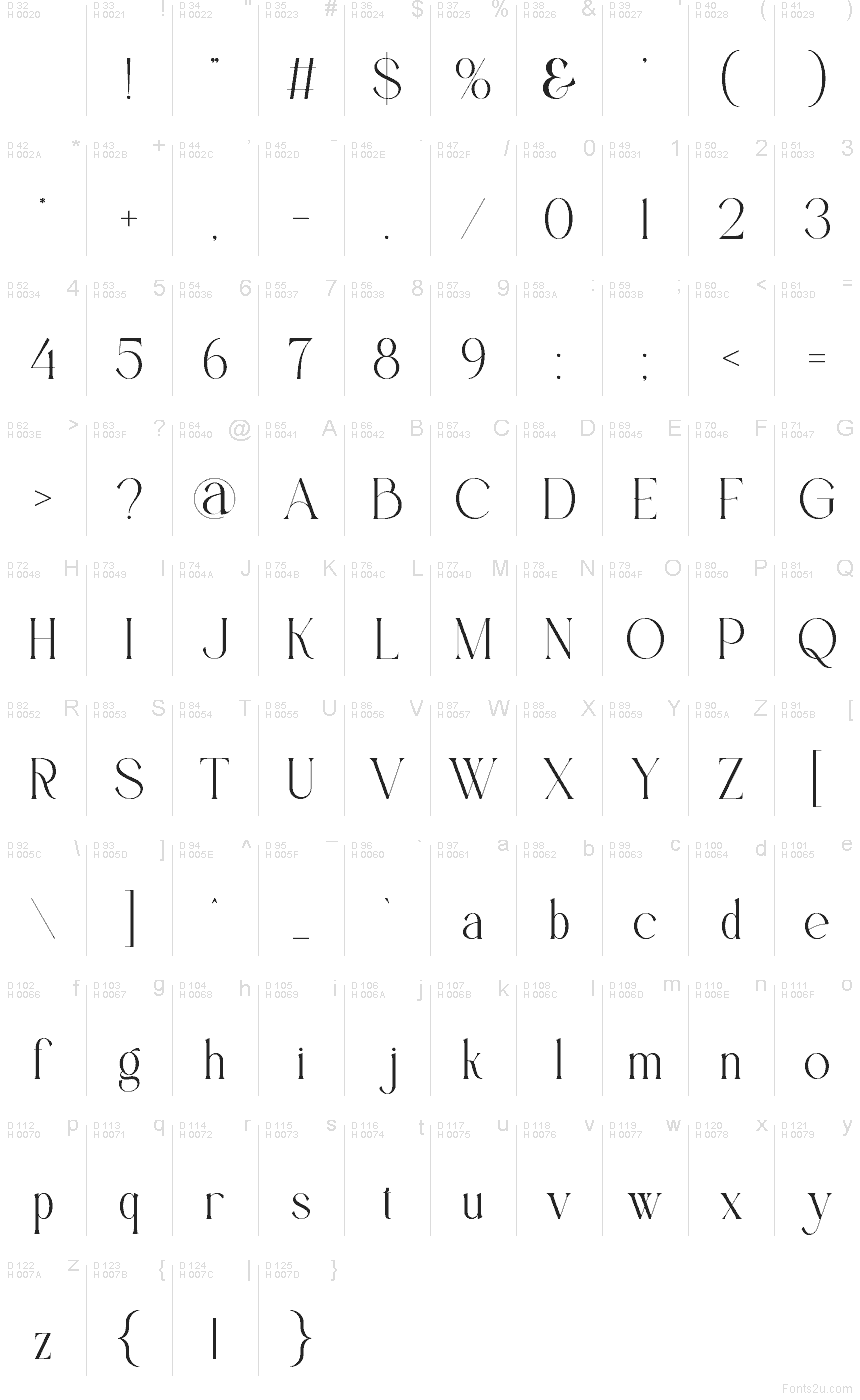
Baiston Regular
Baiston font by ErmediaStudio is a free serif font that instantly gives layouts that polished, editorial sheen. Its tall, poised letterforms, fine hairlines, and generous curves feel like they were pulled from a luxury magazine masthead—sleek, inky, and slightly dramatic. The spacing stays tight and elegant, so even a single word set large feels like a logo treatment rather than ordinary text.
Using Baiston, you can elevate fashion branding, perfume packaging, boutique logos, wedding invitations, magazine covers, and bold social media headlines with the same refined voice. This free font thrives when you give it space to breathe at larger sizes. For a clean, contemporary pairing, combine Baiston for headings with a simple geometric sans serif for supporting copy.